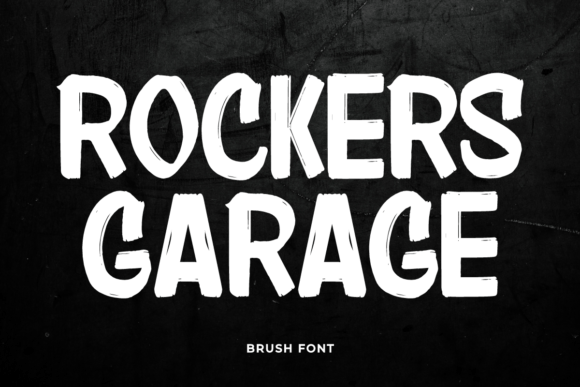
Welcome to the world of expressive typography, where Rockers Garage Font reigns supreme. Dive into a realm where your designs ignite with a touch of audacity and vibrancy. This display brush font isn't just a collection of characters; it's a gateway to a world of captivating visuals, ready to elevate your creative endeavors to new heights.
Unleash the boldness of Rockers Garage Font and embark on a visual journey that leaves an imprint on hearts and minds. Let your designs roar with confidence, expressing strength and individuality. Whether you're crafting logos that demand attention, branding that exudes personality, or titles that captivate audiences, Rockers Garage Font is your ultimate ally.
Express yourself with a font that speaks louder than words. Create social media posts that spark engagement, advertisements that turn heads, and product packaging that demands a closer look. Let Rockers Garage Font amplify your message, making it resonate with audiences on a deeper level.
Bring your products and designs to life with Rockers Garage Font. Its versatility knows no bounds, adapting seamlessly to various mediums. From eye-catching product labels to stunning photography, from watermarks that add a touch of exclusivity to special event invitations that exude elegance, Rockers Garage Font is the font that brings your vision to life.
Elevate your web designs with a font that commands attention. Create magazine layouts that captivate readers, leaving them yearning for more. Engage your audience with blog posts that blend aesthetics with substance. With Rockers Garage Font, your digital presence will radiate creativity and leave a lasting impression.
Join the ranks of discerning designers, marketers, and creatives who have embraced Rockers Garage Font as their weapon of choice. Experience the transformative power of typography and witness how a well-chosen font can elevate your designs to new heights of brilliance.